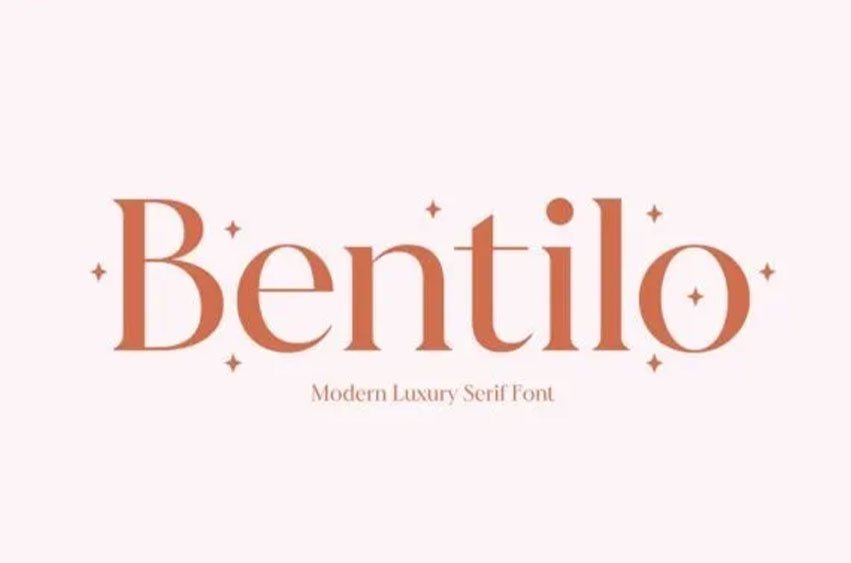
Bentilo Font is a stylish and incredibly elegant serif font. It is defined by smooth curves and is perfect for fashion branding or editorial designs. Use this font for your designs, and explore its endless possibilities.